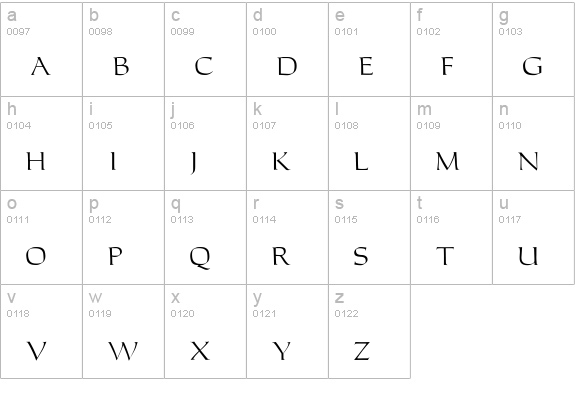
CaracubRomanFon is a modern and stylish font that exudes elegance and sophistication. Its sleek lines and distinctive curves make it perfect for adding a touch of class to any design project. This versatile font is ideal for a wide range of applications, from branding and advertising to invitations and social media graphics. The best part? CaracubRomanFon is available for free download at FontsMarket.com, making it easily accessible to designers and creatives looking to elevate their work with a high-quality typeface. Whether you're working on a professional project or a personal endeavor, CaracubRomanFon is sure to make a statement and leave a lasting impression. Download this stunning font today and take your designs to the next level.